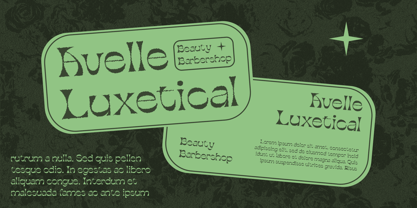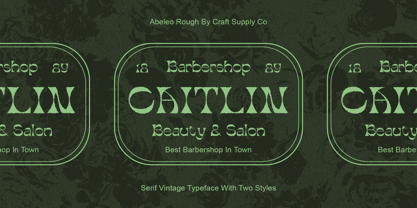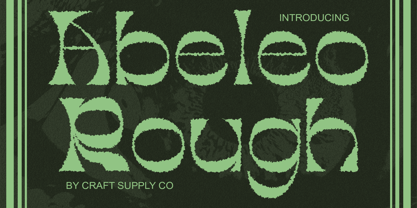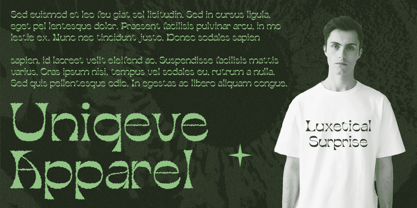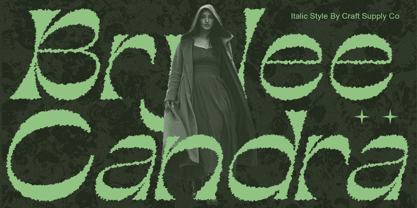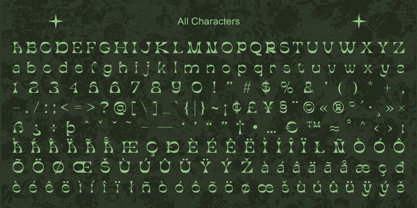
Abeleo Rough
by Craft Supply Co
The Abeleo Rough Font Family was designed by Trio Nazzar Saputra, Wahyu Hadi Yuana and published by Craft Supply Co. Abeleo Rough contains 2 styles and family package options.
Abeleo Rough: Retro Elegance with a Funky Twist
Captivating Retro Vibes
Abeleo Rough exudes retro charm with its funky yet elegant design. Inspired by the Art Deco movement, this font brings a touch of vintage flair to any display project.
Fusion of Funkiness and Elegance
With its unique blend of funky shapes and elegant lines, This font strikes a perfect balance between playfulness and sophistication. Its Art Deco influence adds a timeless appeal to modern designs.
Perfect for Eye-Catching Displays
Tailored for display purposes, This font shines in various contexts, from posters to digital graphics. Its rough texture and bold presence ensure that your message grabs attention effortlessly.
Versatile Application
Beyond its retro aesthetic, This font offers versatility in application. Whether used in branding, packaging, or editorial design, its distinct style adds character and visual interest.
Retro Chic for Modern Designs
This font embodies the essence of retro chic, infusing displays with funky elegance inspired by the Art Deco era. Its rough texture and distinctive shapes make it a versatile choice for designers seeking to add a touch of vintage flair to their projects. Step into the world of This font and elevate your designs with its unique charm.
Designers: Trio Nazzar Saputra, Wahyu Hadi Yuana
Publisher: Craft Supply Co
Foundry: Craft Supply Co
Design Owner: Craft Supply Co